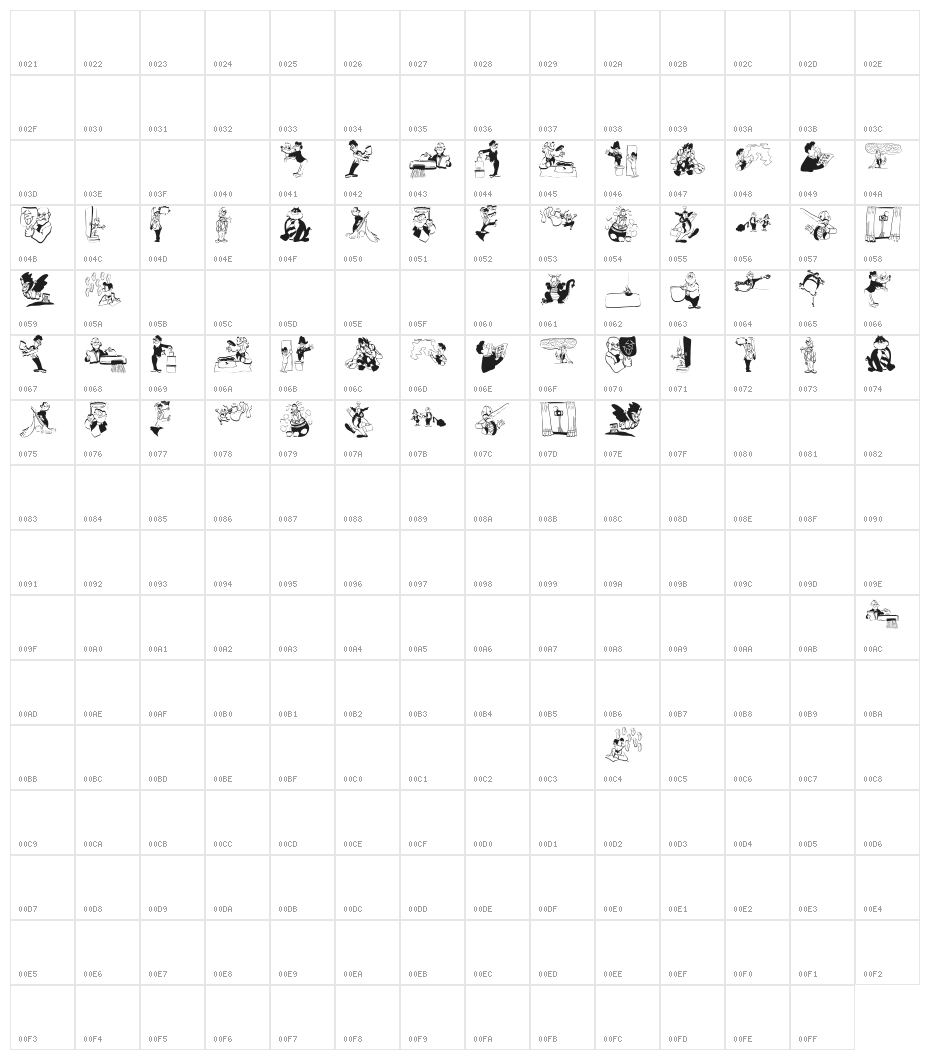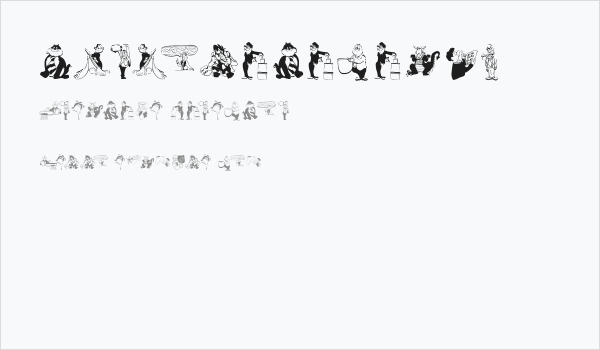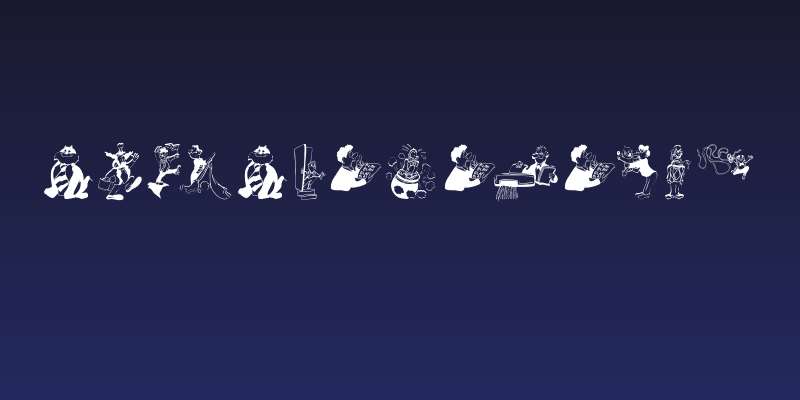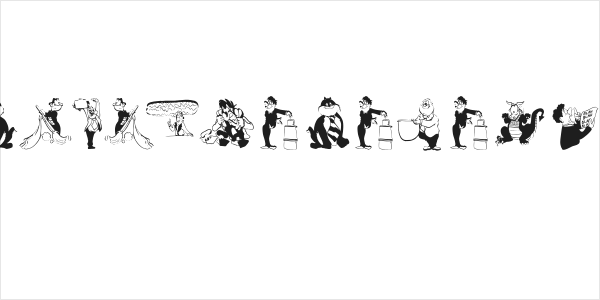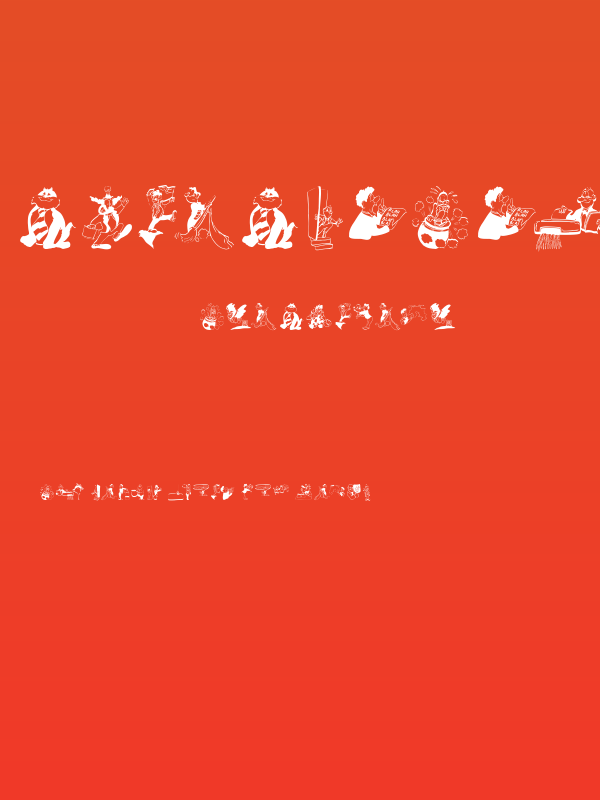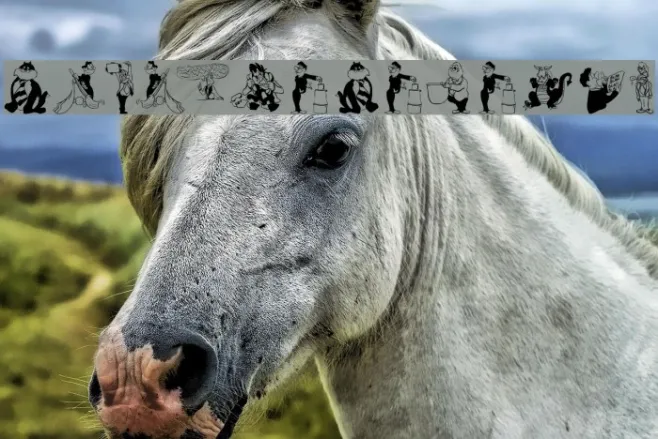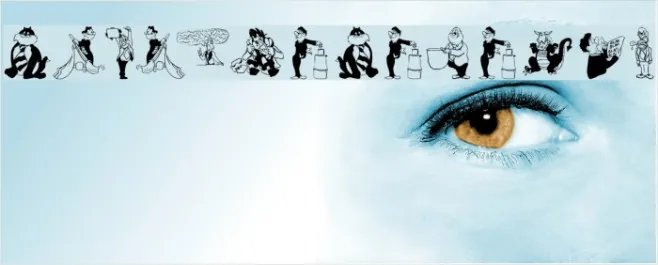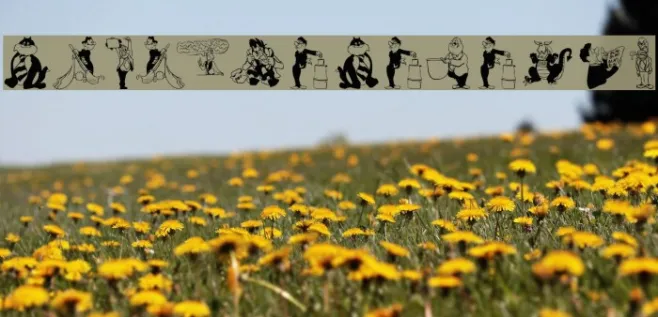
OurPoliticians Font
OurPoliticians Description
A highly decorative and whimsical display font where each character is represented by a unique cartoon illustration of a politician or political scene, featuring exaggerated expressions and humorous scenarios. The glyphs are detailed, playful, and visually complex, making each letter distinct and easily recognizable as a caricature.
| Overall Style | Decorative, Whimsical, Humorous |
| Use Case | Headlines, Posters, Logos, Themed event materials |
| Proposed Projects | Editorial cartoons, political satire posters, comic book titles, event flyers, novelty greeting cards. |